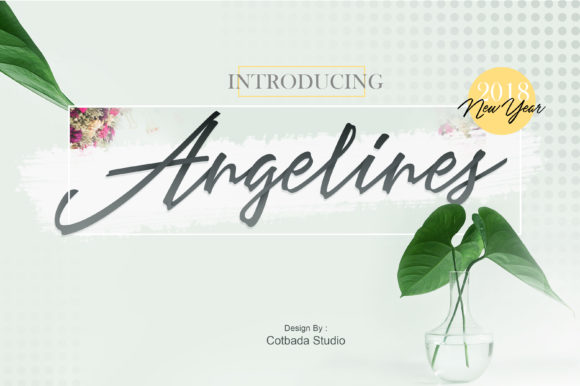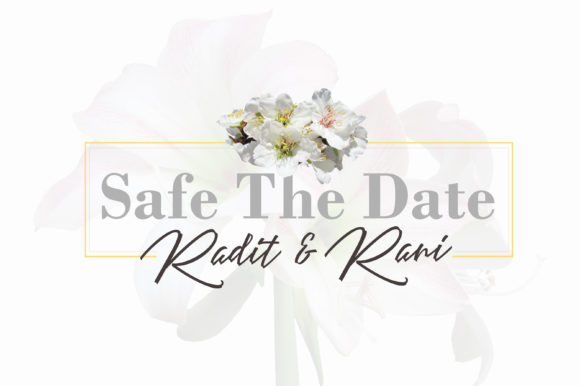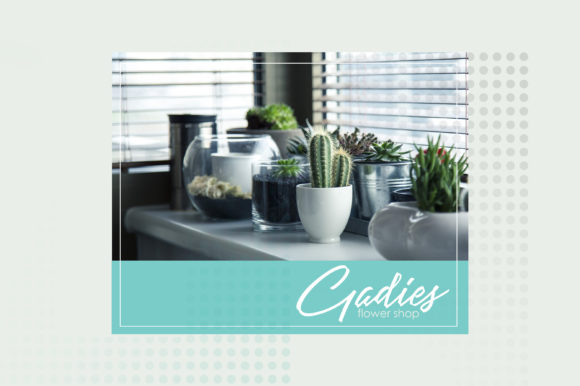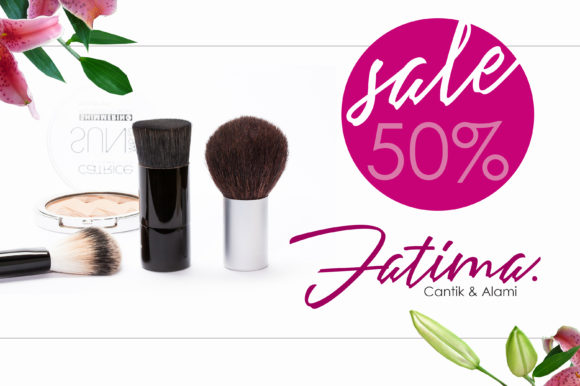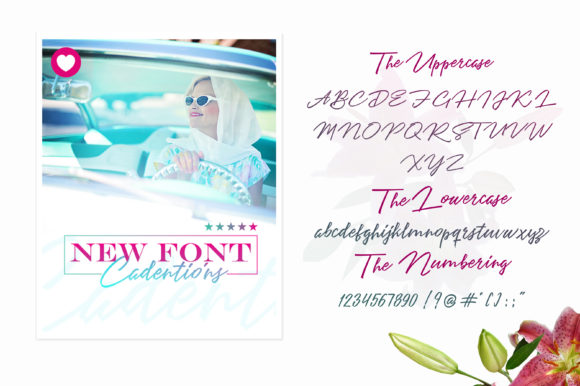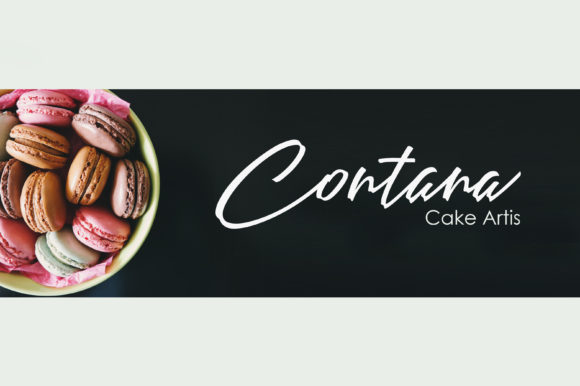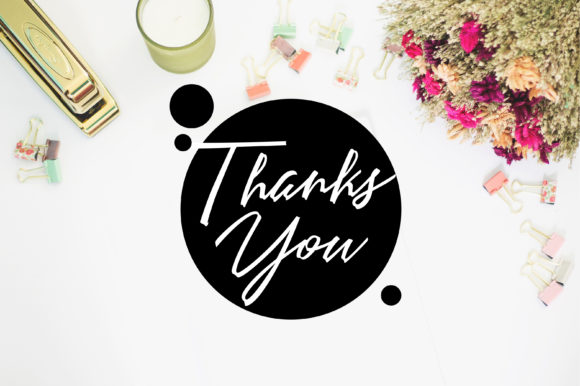
Angelines Script Font
About Angelines Script Font
Angelines Script is a beautiful handmade script font that will put that special spark on any design project. Fall in love with its authentic charm.